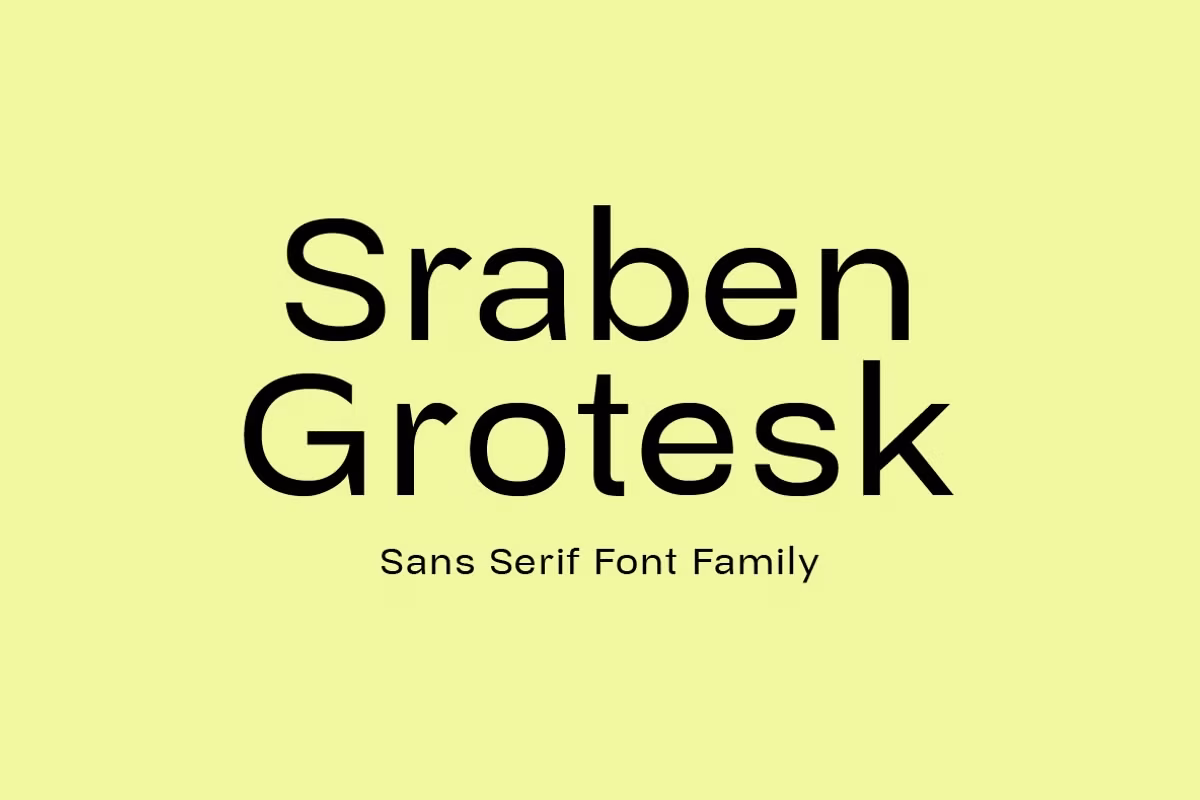
Sraben Grotesk Font Family Free Download is a modern sans-serif typeface family crafted for clarity, versatility, and clean aesthetics. With multiple weights and styles, this font family is perfect for user interfaces, branding, editorial layouts, web design, and corporate identity. Its neutral, geometric design makes it highly legible at any size while maintaining a sleek, professional appearance.
Designers love Sraben Grotesk Font Family Free Download for its balance between modern minimalism and typographic warmth. It adapts effortlessly to both bold headlines and subtle body text, offering consistency across different media. Whether you're building a website, designing a mobile app, or creating marketing materials, Sraben Grotesk gives you the flexibility and polish to deliver your message effectively.